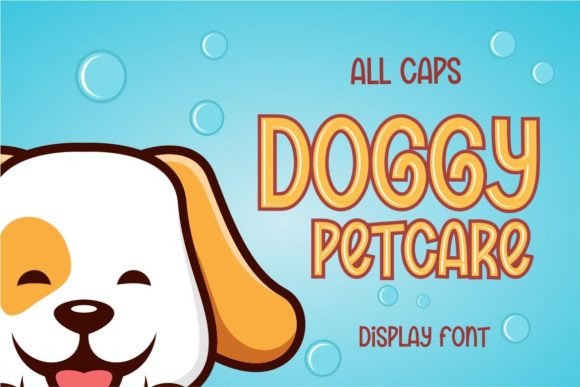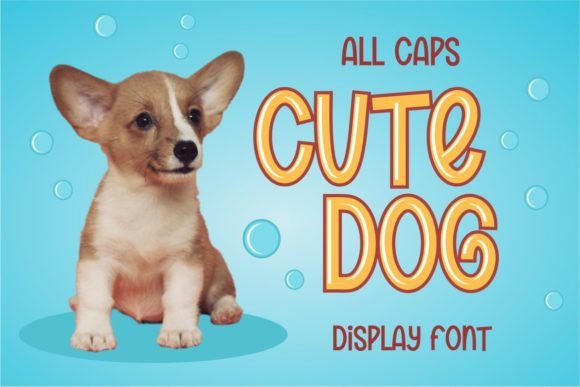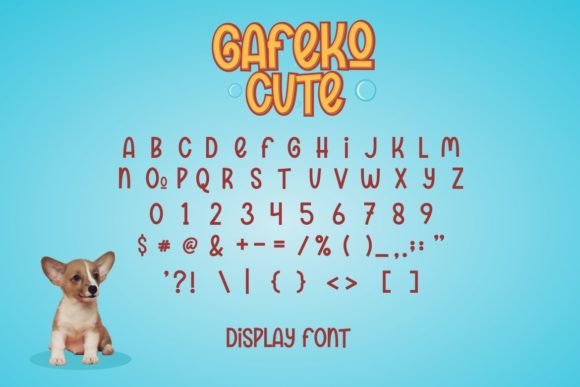
Gafeko Cute Font: Add a Touch of Whimsy to Your Designs
Are you looking for a font that can add a playful and fun touch to your designs? Look no further than Gafeko Cute Font! This adorable display font is perfect for designers and crafters who want to create projects that are lively, engaging, and full of personality. In this article, we’ll take a closer look at Gafeko Cute Font, its features, and how you can use it to elevate your designs.
What is Gafeko Cute Font?
Gafeko Cute Font is a playful and cute display font that is designed to add a touch of whimsy to your designs. Its round, bubbly letters and fun, cartoonish style make it perfect for creating projects that are fun and lively. Whether you’re working on a children’s book, a craft project, or a marketing campaign, Gafeko Cute Font is sure to bring a smile to your audience’s face.
Key Features of Gafeko Cute Font
- Playful and Cute Design: Gafeko Cute Font features round, bubbly letters that are sure to add a touch of whimsy to your designs.
- Display Font: This font is perfect for headlines, titles, logos, and other display purposes.
- Cartoonish Style: The font’s fun, cartoonish style makes it perfect for projects that require a playful touch.
- Easy to Read: Despite its playful design, Gafeko Cute Font is easy to read, making it perfect for use in a variety of projects.
How to Use Gafeko Cute Font
Gafeko Cute Font is a versatile font that can be used in a variety of projects, including:
- Children’s Books and Educational Materials: The font’s playful design makes it perfect for use in children’s books, educational materials, and other projects aimed at kids.
- Craft Projects: Gafeko Cute Font is perfect for use in craft projects, such as scrapbooking, card making, and other paper crafts.
- Marketing Campaigns: The font’s fun and playful design makes it perfect for use in marketing campaigns aimed at kids or families.
- Logos and Branding: Gafeko Cute Font can be used to create fun and playful logos and branding materials.
Tips for Using Gafeko Cute Font
- Use it Sparingly: While Gafeko Cute Font is perfect for adding a touch of whimsy to your designs, it’s best to use it sparingly. Use it for headlines and titles, but stick to a more traditional font for body text.
- Pair it with Other Fonts: Gafeko Cute Font can be paired with other fonts to create a unique and interesting design. Try pairing it with a sans-serif font for a fun and modern look.
- Experiment with Colors: The font’s playful design makes it perfect for use with bright and bold colors. Experiment with different colors to find the perfect combination for your project.
Gafeko Cute Font is a playful and cute display font that is perfect for adding a touch of whimsy to your designs. Its round, bubbly letters and fun, cartoonish style make it perfect for creating projects that are fun and lively. Whether you’re a designer or crafter, Gafeko Cute Font is a great addition to your font collection. So why not give it a try and see how it can elevate your designs?